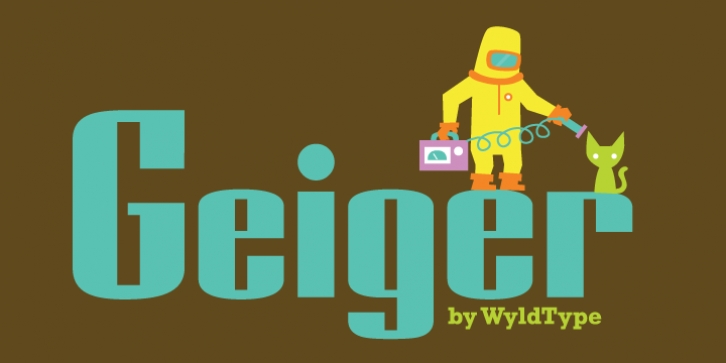
Publisher: WyldType
Geiger was designed by Bruno Nadeau and published by WyldType. Geiger contains 4 styles and family package options.
Geiger is a geometric typeface inspired by type found in the intros of Commodore 64 games, its attention to the grid and its limited set of building blocks. The design of Geiger respects these criteria to create a sturdy alphabet without diagonals, and loosen its grip on the classic limitations to produce a complete character set worthy of today`s high-resolution displays with a retro touch.
The properties of classic computing platforms, like their limited memory and low-resolution displays, required that the designers and programmers of the time devise and use certain techniques to produce interesting visual results. These platforms offered limited sets of default building blocks from which to build more complex graphics and type, and some skilled coders would work around these limitations to produce the unexpected. One of the areas that saw experimental digital type flourish is the Commodore 64 intro scene.
The Geiger family includes four styles (regular, oblique, bold and bold oblique), all include common ligatures (fi, ff, ffi, fj, fl, jj, tt, Th, TT) and a few stylistic alternates (K, L). A particular attention was paid to the pattern created by the vertical stem and negative spaces of tightly set text, especially for Geiger Bold. Geiger produces good results at a size of 30pt or more, but we suggest using it at higher display sizes.